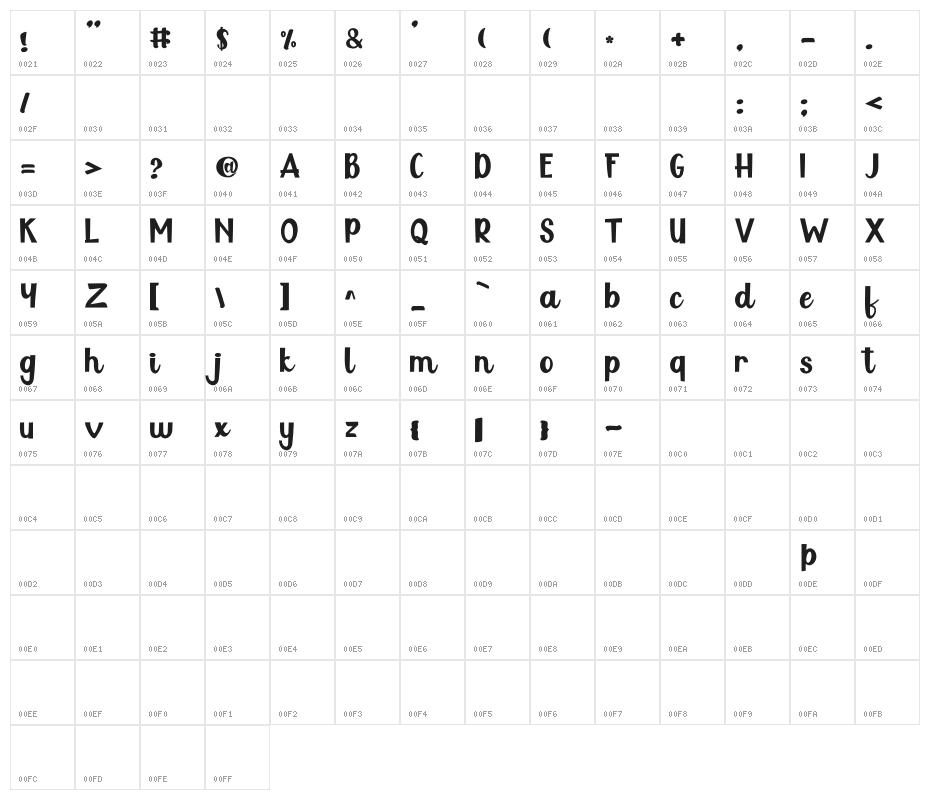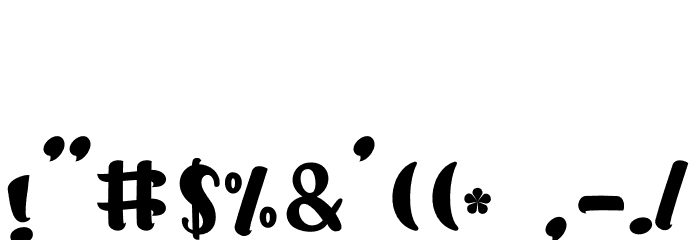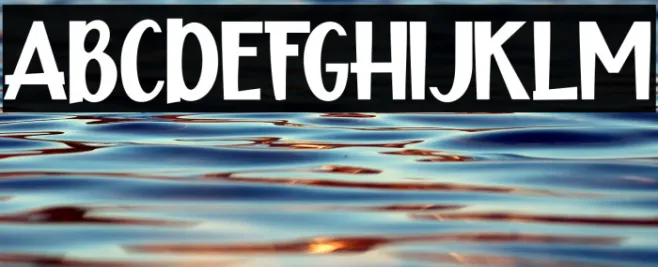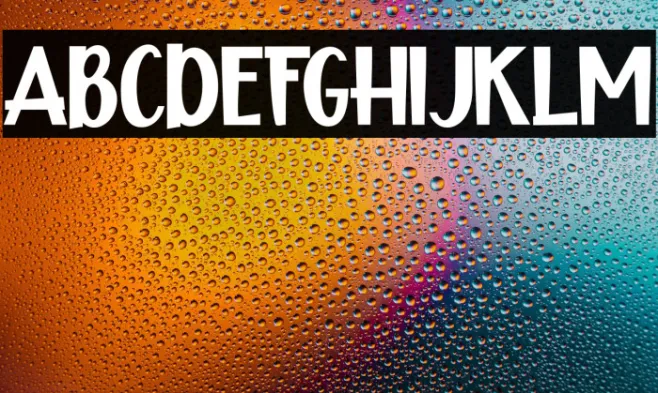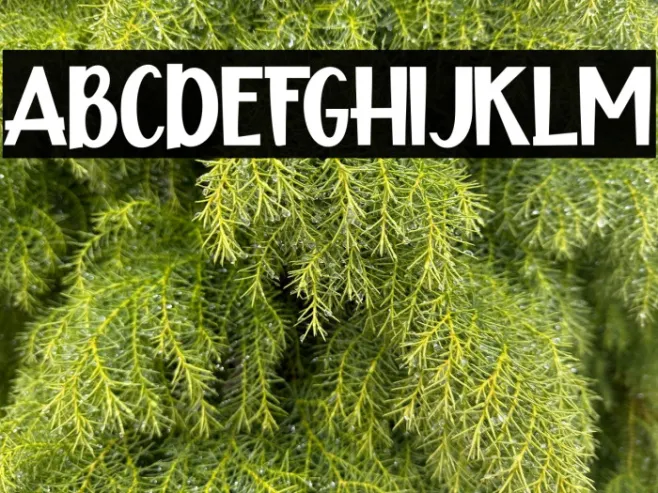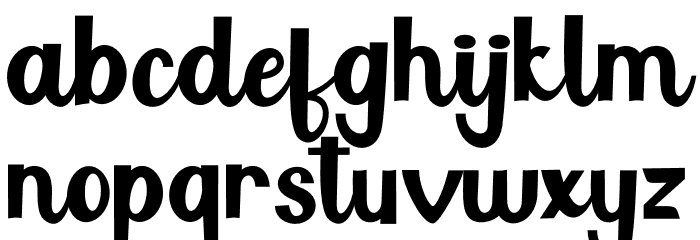
Polythem Font
Polythem Description
This font features a bold and playful style with a hand-drawn appearance. The uppercase letters are characterized by thick, uniform strokes with slight variations that add a whimsical touch. The lowercase letters maintain this playful aesthetic, with some letters featuring loops and curves that enhance the font's friendly and approachable feel. The numbers and special characters are consistent with the overall style, providing a cohesive look. This font is ideal for projects that require a fun and informal tone, such as children's books, party invitations, or playful branding.
| Proposed Projects | Children's books, party invitations, playful branding, casual posters. |